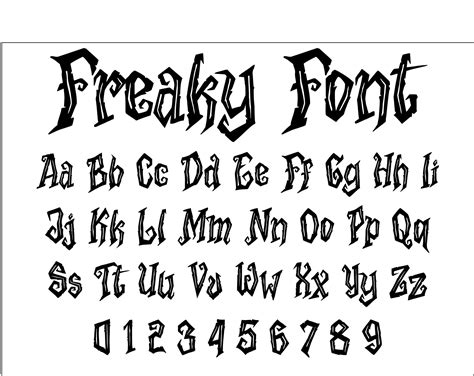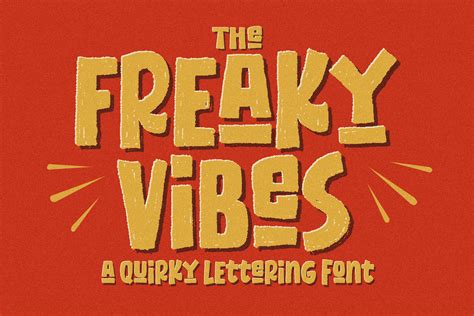
In the vast world of digital design, typography plays a crucial role in capturing attention and conveying messages effectively. One of the most intriguing aspects of typography is the use of freaky text fonts. These fonts are not your average, run-of-the-mill typefaces; they are designed to stand out, to shock, and to leave a lasting impression. Whether you're a graphic designer, a web developer, or simply someone looking to add a unique touch to your projects, understanding and utilizing freaky text fonts can elevate your work to new heights.
What Are Freaky Text Fonts?
Freaky text fonts are a category of typography that pushes the boundaries of conventional design. These fonts often feature unconventional shapes, exaggerated styles, and sometimes even a touch of the surreal. They are designed to grab attention and evoke strong emotions, making them perfect for projects that require a bold and distinctive look.
Why Use Freaky Text Fonts?
There are several reasons why you might want to incorporate freaky text fonts into your design projects:
- Attention-Grabbing: In a world where visual content is abundant, standing out is crucial. Freaky text fonts can help your design catch the eye and hold the viewer’s attention.
- Creative Expression: These fonts allow designers to express their creativity in unique ways, making their work more memorable and impactful.
- Versatility: Freaky text fonts can be used in a variety of contexts, from logos and branding to web design and print media.
- Emotional Impact: The unconventional nature of these fonts can evoke strong emotional responses, making them ideal for projects that aim to stir feelings and reactions.
Types of Freaky Text Fonts
Freaky text fonts come in a variety of styles, each with its own unique characteristics. Here are some of the most popular types:
- Grunge Fonts: These fonts have a rough, textured appearance, often resembling hand-drawn or distressed type. They are perfect for designs that need a raw, edgy look.
- Handwritten Fonts: These fonts mimic the natural flow and imperfections of handwriting, adding a personal and authentic touch to your designs.
- 3D Fonts: These fonts create the illusion of depth and dimension, making text appear as if it is popping out of the page or screen.
- Distorted Fonts: These fonts feature exaggerated, twisted, or warped shapes, adding a dynamic and energetic feel to your designs.
- Futuristic Fonts: These fonts have a sleek, modern look with sharp angles and clean lines, often inspired by science fiction and technology.
How to Choose the Right Freaky Text Font
Selecting the right freaky text font for your project involves considering several factors:
- Purpose: Think about the message you want to convey and the emotions you want to evoke. Different fonts can convey different moods and tones.
- Audience: Consider who will be viewing your design. What appeals to one audience might not resonate with another.
- Context: The setting in which your design will be used can also influence your font choice. For example, a grunge font might be perfect for a rock band’s logo but less suitable for a corporate brochure.
- Legibility: While freaky text fonts are meant to be eye-catching, they should still be readable. Ensure that the font you choose doesn’t compromise the clarity of your message.
Using Freaky Text Fonts in Web Design
Incorporating freaky text fonts into web design can add a unique and memorable touch to your website. Here are some tips for using these fonts effectively:
- Headings and Titles: Use freaky text fonts for headings and titles to make them stand out and grab the reader’s attention.
- Accent Text: Use these fonts sparingly for accent text or special elements to add visual interest without overwhelming the design.
- Backgrounds: Consider using freaky text fonts as part of background images or patterns to create a dynamic and engaging visual experience.
- Consistency: Ensure that the font you choose complements the overall design and branding of your website. Consistency is key to maintaining a cohesive look and feel.
Using Freaky Text Fonts in Print Design
Freaky text fonts can also be a powerful tool in print design, adding a unique and memorable touch to your projects. Here are some tips for using these fonts in print:
- Posters and Flyers: Use freaky text fonts for headlines and key messages to make them stand out and grab attention.
- Logos and Branding: Incorporate these fonts into your logo or branding materials to create a distinctive and recognizable identity.
- Packaging Design: Use freaky text fonts to make your product packaging stand out on the shelf and attract potential customers.
- Typography Art: Create typography art pieces using freaky text fonts to add a unique and eye-catching element to your design.
Popular Freaky Text Fonts
There are countless freaky text fonts available, each with its own unique style and characteristics. Here are some popular options to consider: